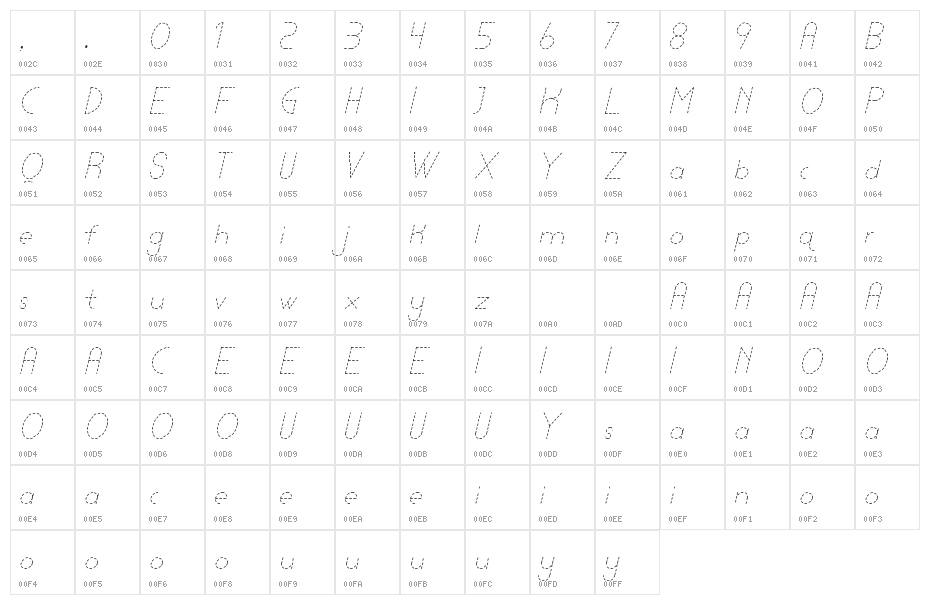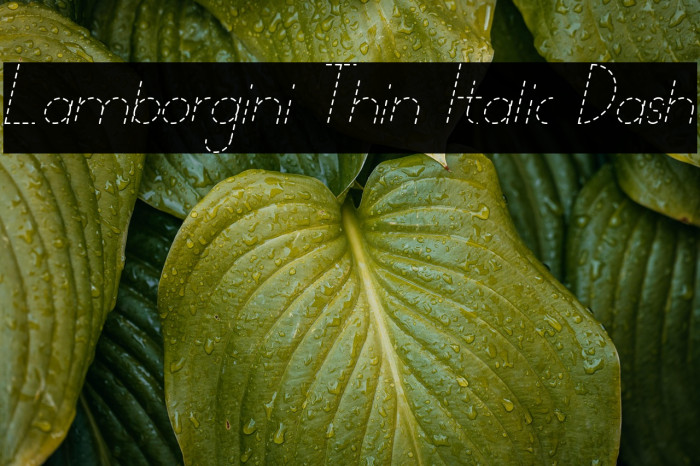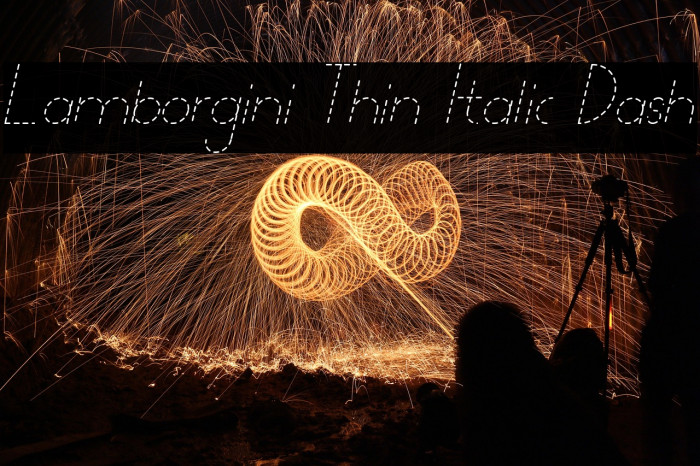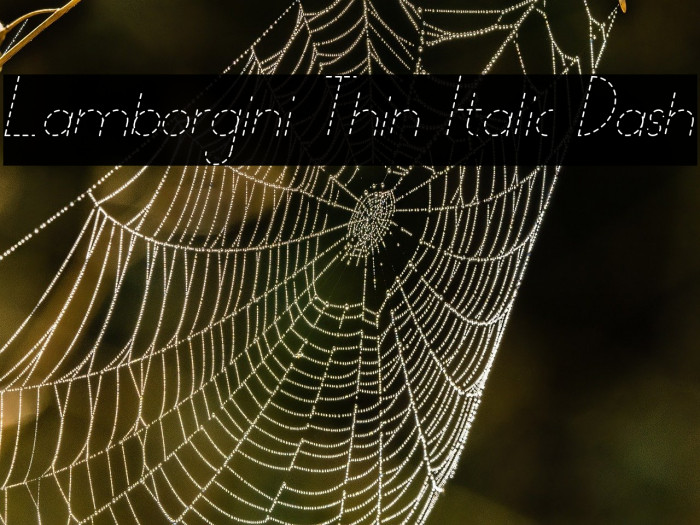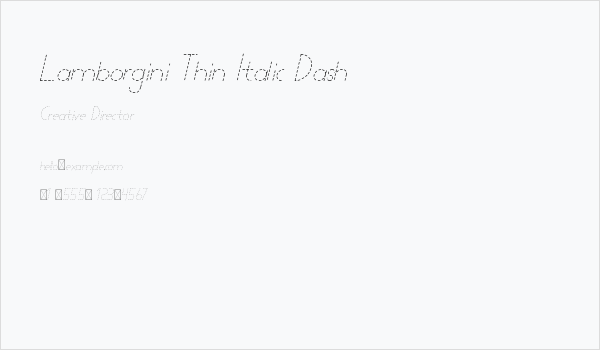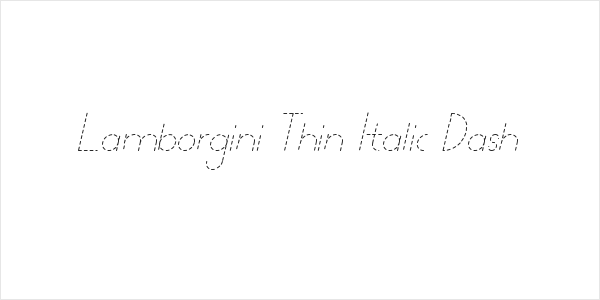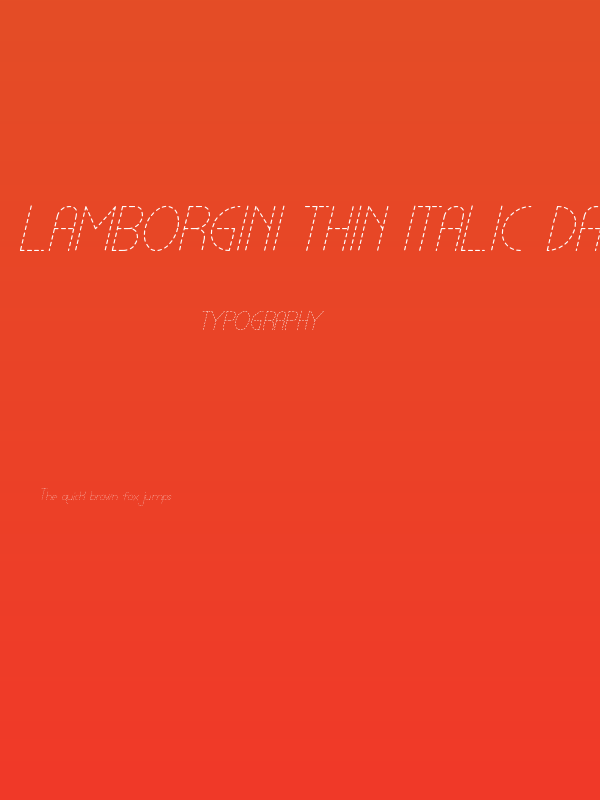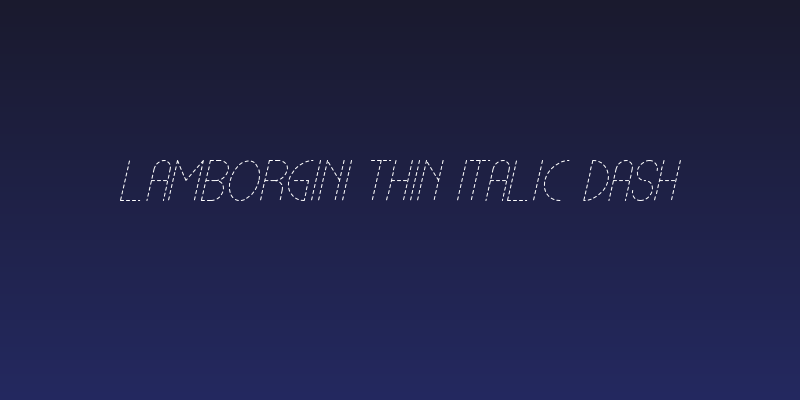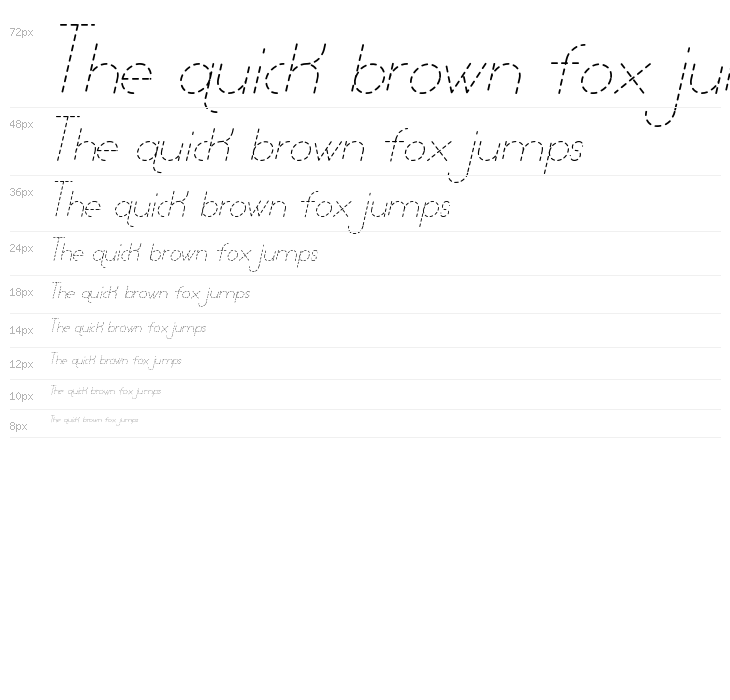
Lamborgini Thin Italic Dash Font
Lamborgini Thin Italic Dash Description
This font features a unique dashed line style that gives it a modern and playful appearance. The characters are italicized, adding a sense of motion and elegance. The uppercase and lowercase letters are consistent in style, with a thin, delicate stroke that maintains readability. The numbers and special characters follow the same design, ensuring uniformity across all elements. This font's distinctive look makes it stand out, while its thin lines and italic slant provide a sleek and sophisticated feel.
| Use Case | Logos, Posters, Invitations |
| Proposed Projects | Ideal for creative projects such as fashion branding, modern art posters, or playful invitations. |